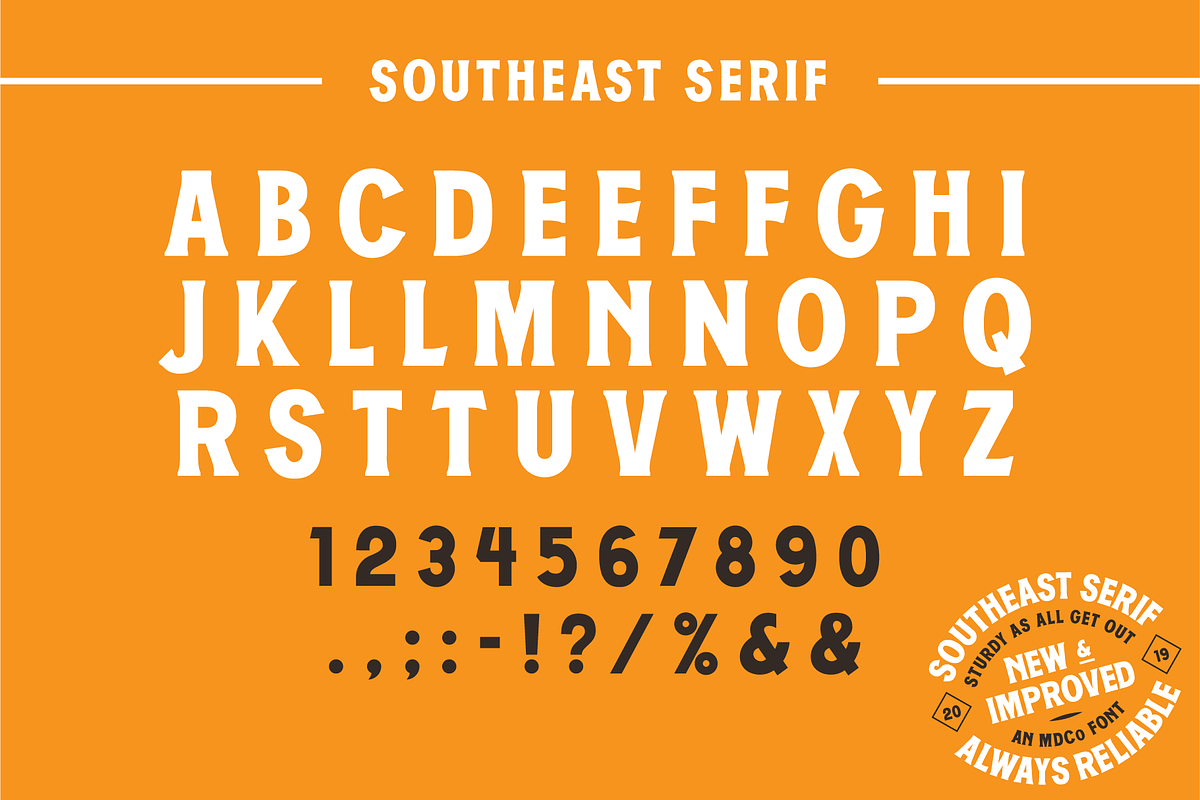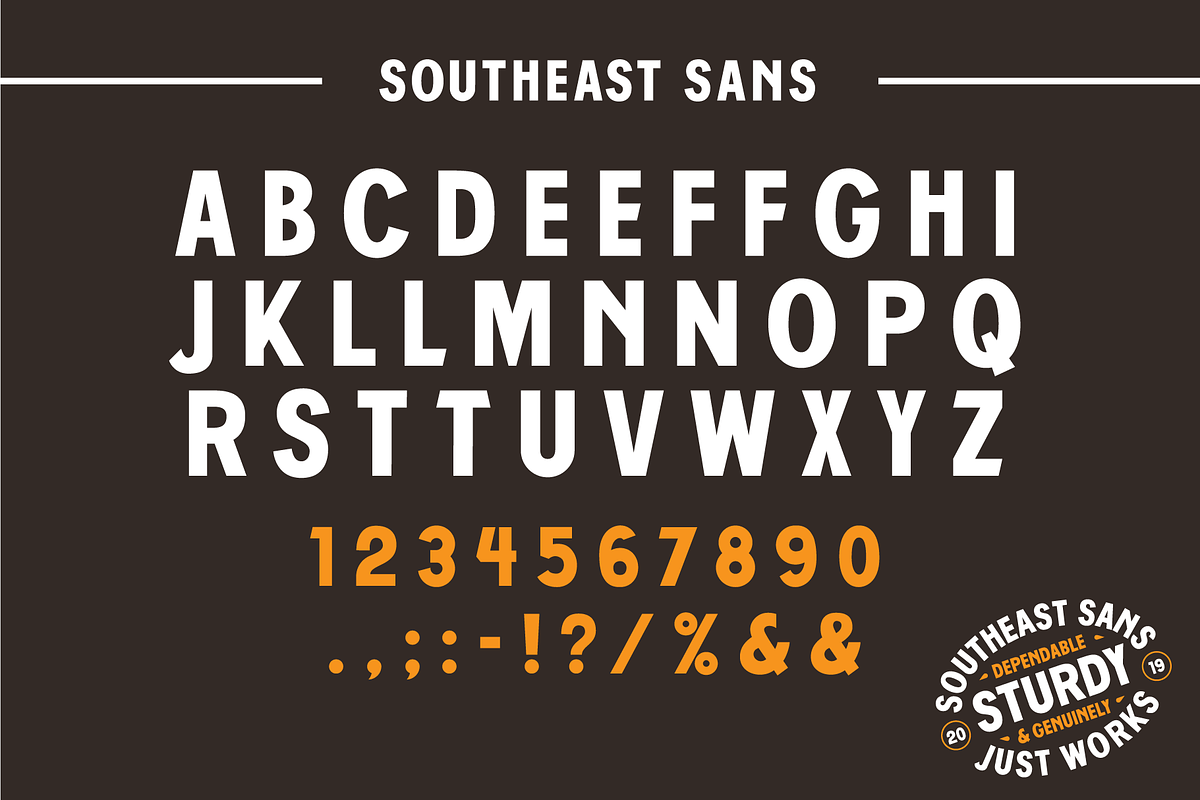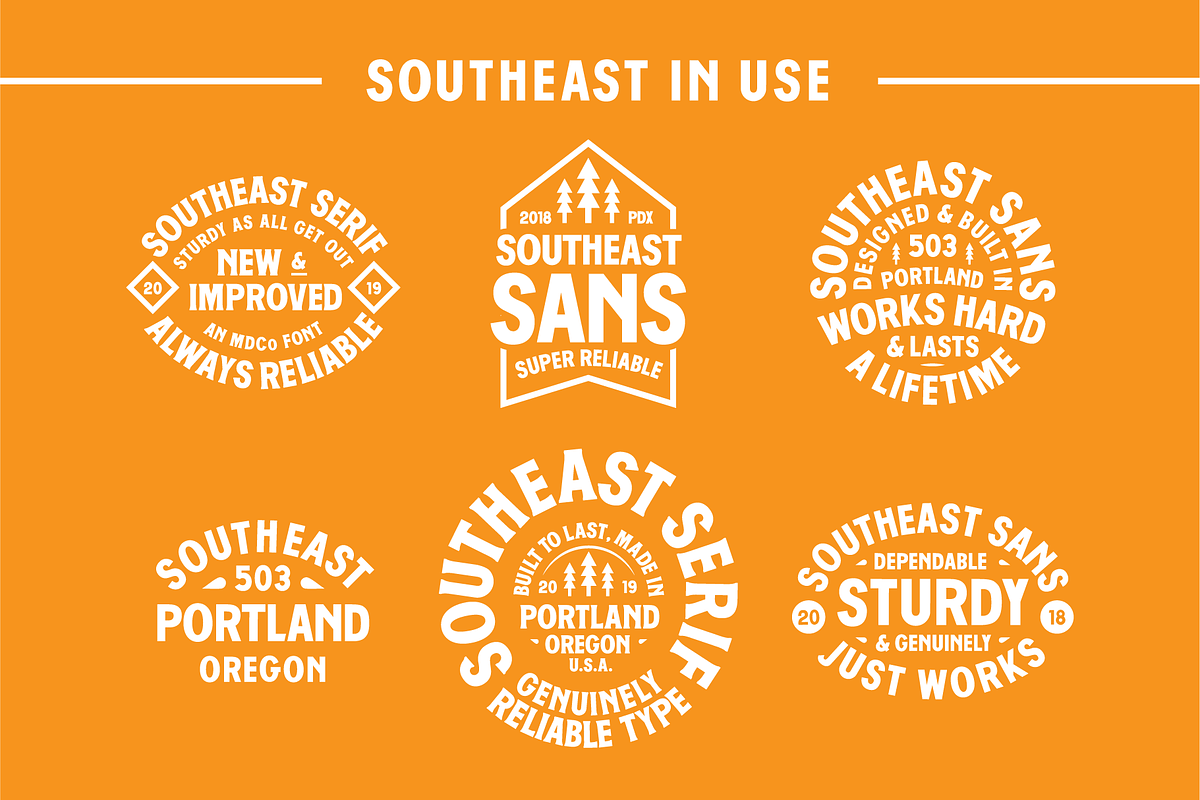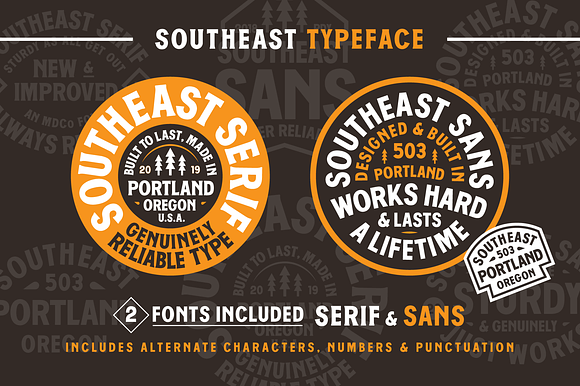
Southeast - Sturdy Display Font
Southeast is a sturdy font designed and built in Southeast Portland, home to the working class of the city. This typeface shows up early and stays late and is still down to grab a beer after work.
A serif and sans version plus a handful of alternate characters and the essential punctuation give you the jump start you need to bring your ideas to life and last the test of time.